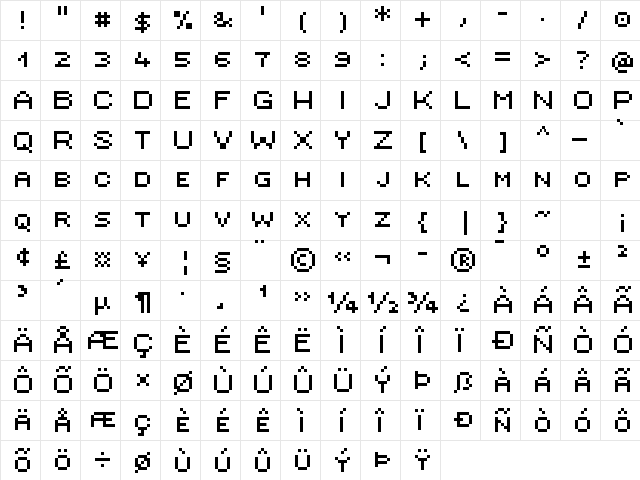
Ambitsek Regular
Design Context for Ambitsek Typeface
Ambitsek offers clean, dependable letterforms without strong stylistic allegiance, making it a practical choice for designers who need flexibility.
Pro Tip: Pair Ambitsek with a font of contrasting weight or personality to build a more expressive typographic hierarchy.